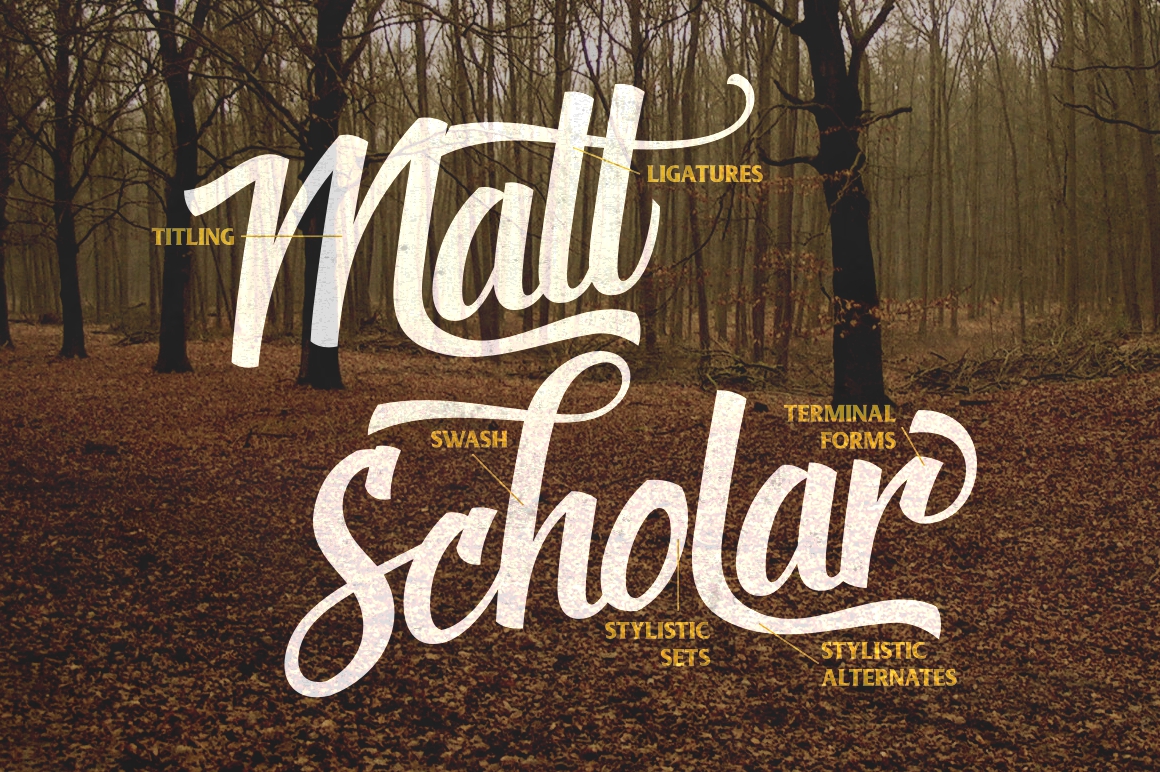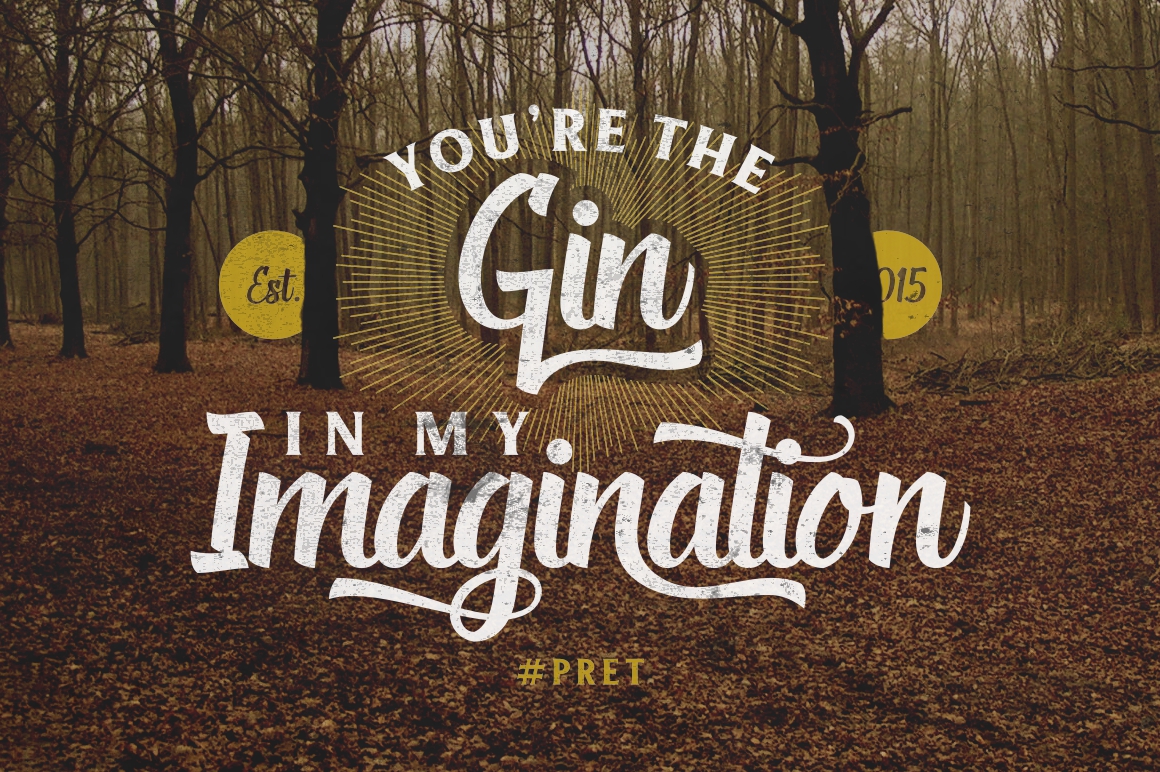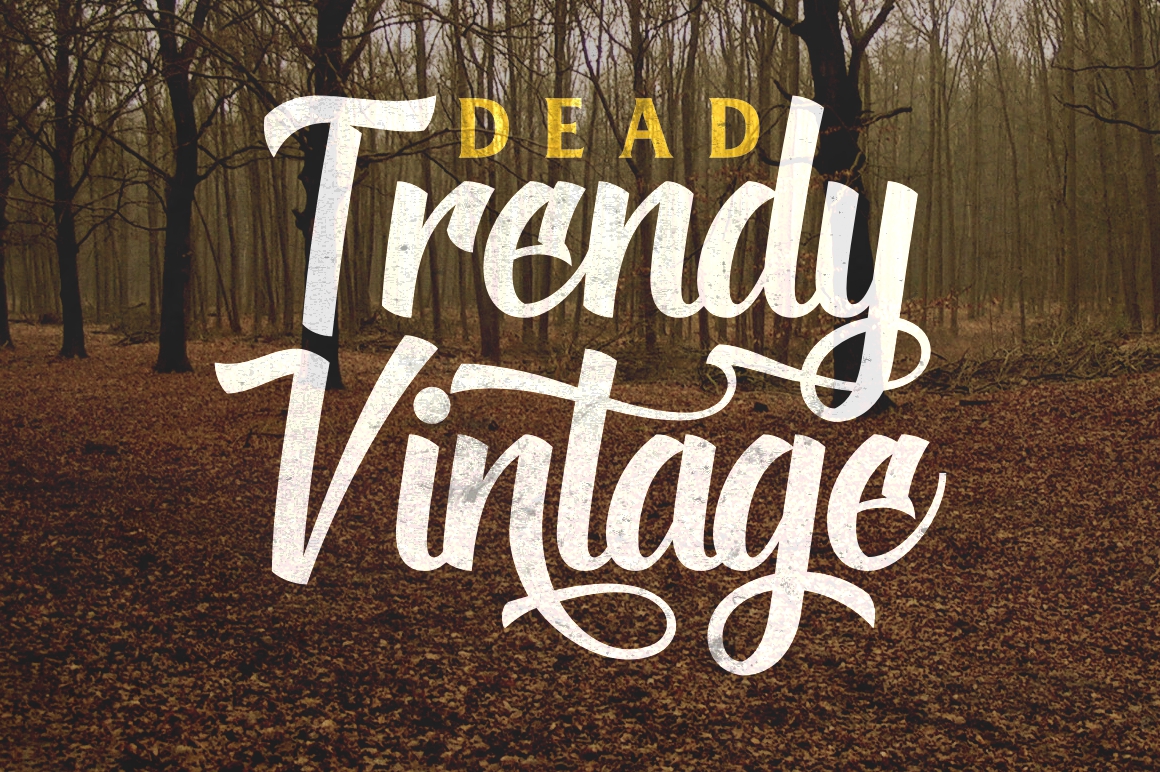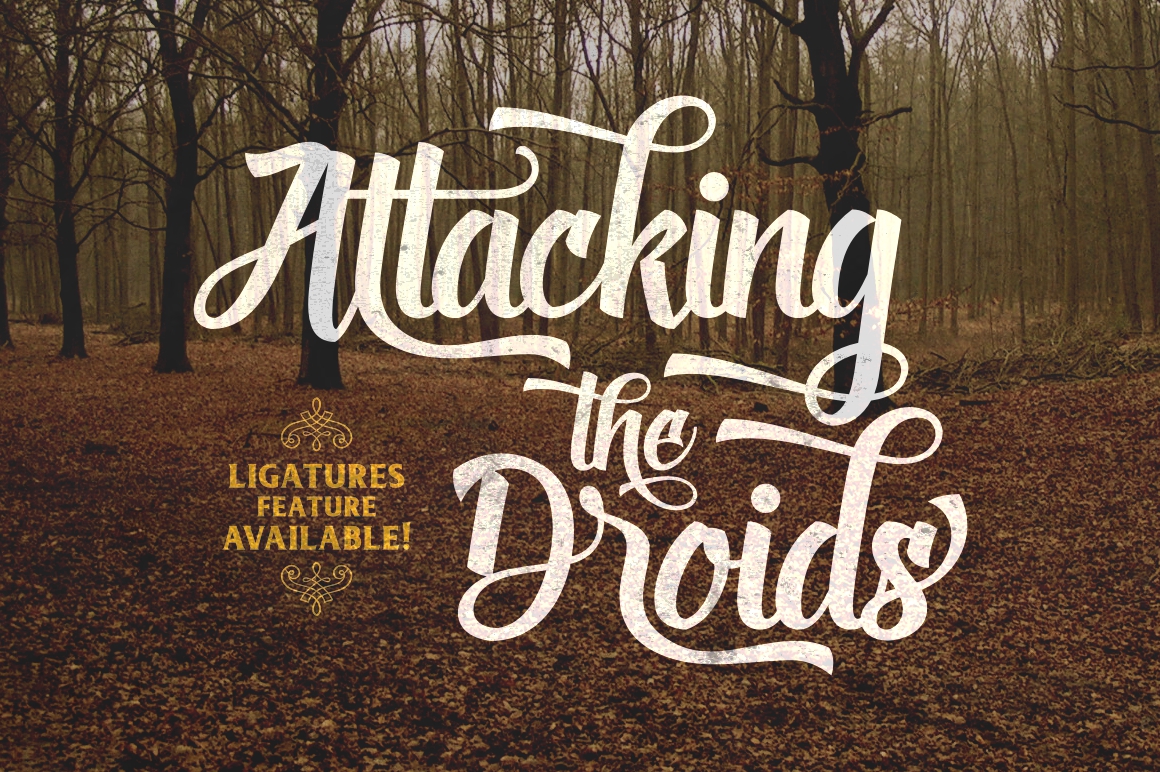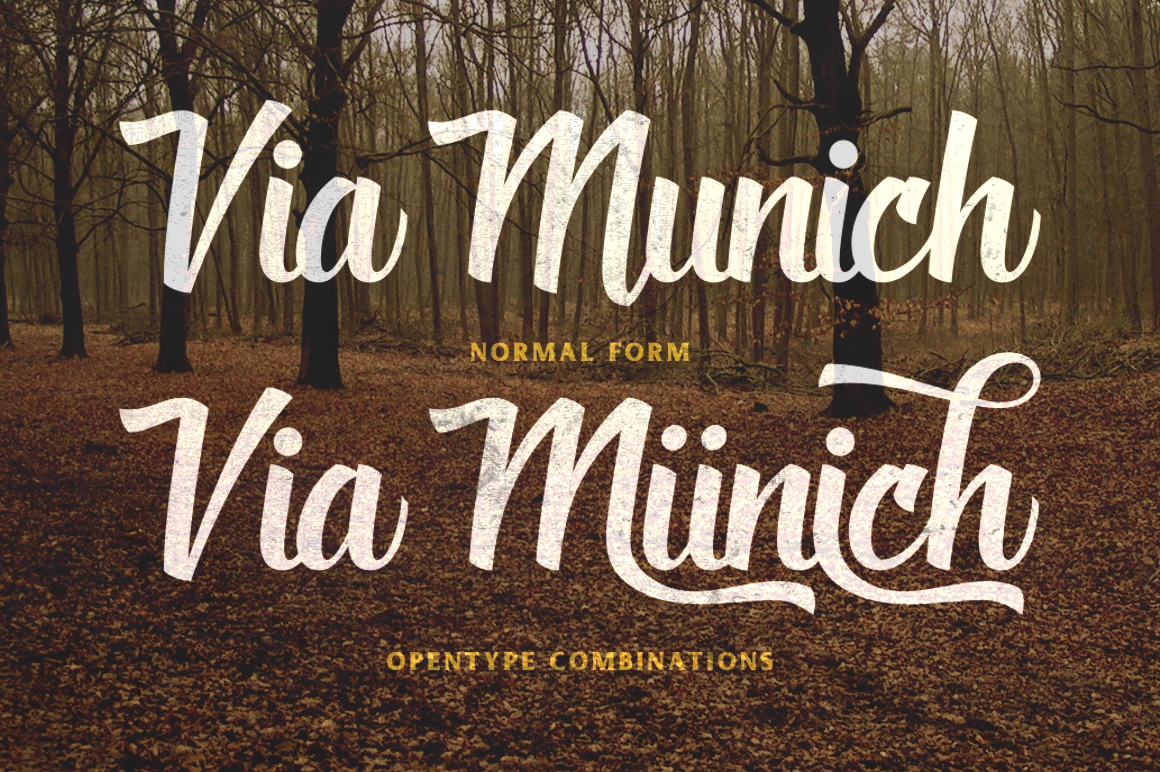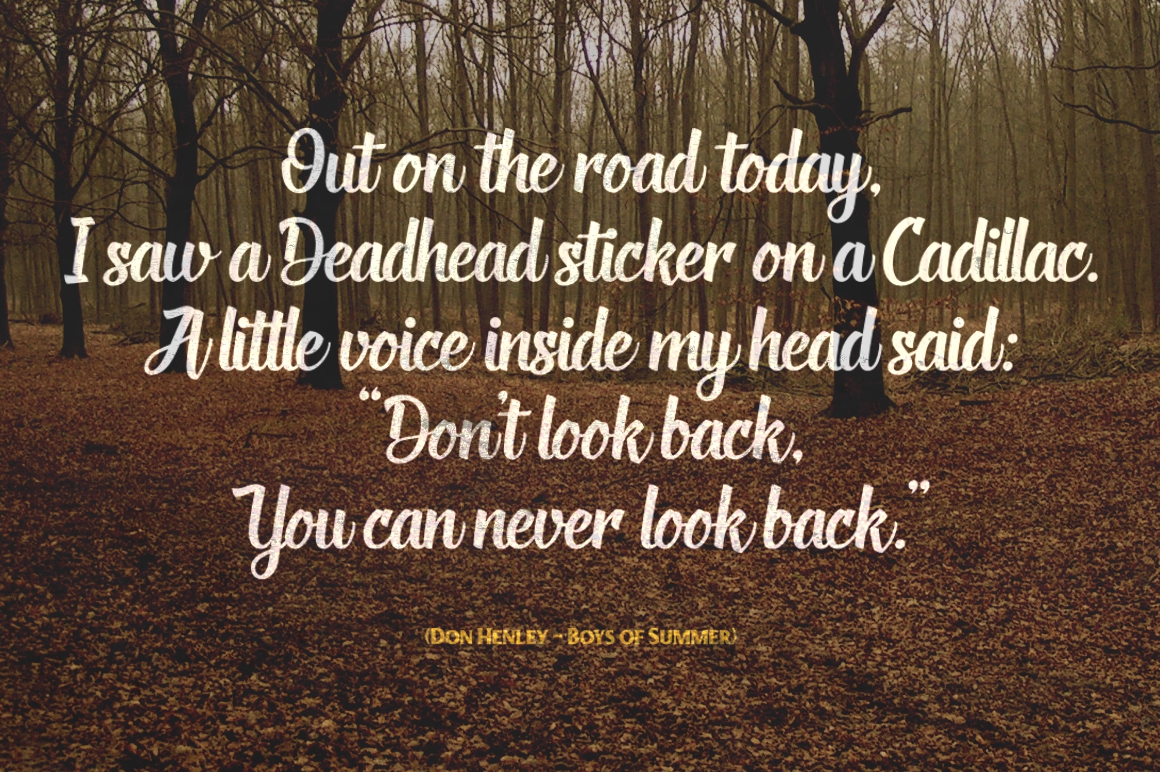
Introducing Deadhead Script Font: Elevate Your Design with a Playful and Exceptional Typeface
In the world of typography, a good font can make all the difference in taking your design to the next level. For designers and crafters looking for a unique and eye-catching typeface, Deadhead Script Font is an excellent choice. Inspired by brush lettering, this playful and exceptional font is designed to add a touch of personality to any design project.
What is Deadhead Script Font?
Deadhead Script Font is a carefully crafted typeface that draws inspiration from the art of brush lettering. With its bold and expressive strokes, this font is perfect for designers who want to add a touch of whimsy and playfulness to their work. Whether you’re creating a logo, poster, or social media graphic, Deadhead Script Font is sure to make your design stand out.
Key Features of Deadhead Script Font
- Playful and Exceptional Design: Deadhead Script Font boasts a unique and eye-catching design that is sure to capture the attention of your audience.
- Inspired by Brush Lettering: The font’s brush lettering inspiration gives it a organic and hand-crafted feel that is perfect for designs that require a personal touch.
- High Attention to Detail: The font has been crafted with meticulous attention to detail, ensuring that every stroke and curve is perfect for use in a variety of design applications.
- Versatile: Deadhead Script Font can be used in a wide range of design styles, from playful and casual to bold and edgy.
Why Choose Deadhead Script Font?
With so many fonts available, why choose Deadhead Script Font? Here are just a few reasons why designers and crafters are falling in love with this exceptional typeface:
- Unique and Original: Deadhead Script Font is a one-of-a-kind typeface that will set your design apart from the crowd.
- Easy to Read: Despite its playful design, Deadhead Script Font is easy to read and understand, making it perfect for use in body text and headlines.
- Customizable: The font is highly customizable, allowing you to adjust the size, color, and style to suit your design needs.
Use Cases for Deadhead Script Font
Deadhead Script Font is a versatile typeface that can be used in a wide range of design applications, including:
- Logos and Branding: Use Deadhead Script Font to create a unique and memorable logo that reflects your brand’s personality.
- Posters and Flyers: Add a touch of playfulness to your posters and flyers with Deadhead Script Font.
- Social Media Graphics: Use Deadhead Script Font to create eye-catching social media graphics that will help your brand stand out.
- Invitations and Cards: Add a personal touch to your invitations and cards with Deadhead Script Font.
In conclusion, Deadhead Script Font is an exceptional typeface that is sure to elevate your design to the next level. With its playful and exceptional design, high attention to detail, and versatility, this font is perfect for designers and crafters looking for a unique and eye-catching typeface. Whether you’re creating a logo, poster, or social media graphic, Deadhead Script Font is an excellent choice.